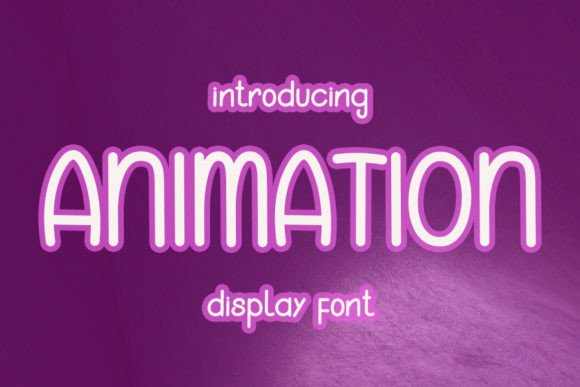
The Ultimate Guide to Animation Font: Elevate Your Designs with a Modern Twist
Have you ever been in the middle of a design project, and suddenly, you’re stuck on finding the perfect font? I recall a recent experience where I was working on a branding project for a trendy new cafe, and I just couldn’t find a font that captured the modern, playful vibe they were looking for. That’s when I stumbled upon the Animation Font, and it completely transformed my design. In this article, we’ll dive into the world of Animation Font, exploring its features, how to use it, and what makes it a game-changer for designers, crafters, and creative hobbyists.
A Personal Review: What I Love About Animation Font
So, what makes Animation Font so special? Here are a few things that I absolutely love:
- ✨ Balanced and varied: The font has a perfect balance between thickness and thinness, making it easy to read and visually appealing.
- ✅ Modern vibe: The font has a fresh, modern feel that instantly elevates your designs.
- 💯 Spotless form: The font is clean and precise, making it perfect for a wide range of design projects.
While Animation Font is an amazing font, there are a few minor quirks to be aware of:
- 🤔 Limited use in very small sizes: While the font is generally great for body text, it may not be the best choice for very small font sizes (e.g., 8-10pt).
- ⚠️ No extensive language support: The font may not support a wide range of languages, so be sure to check the character set before using it for a multilingual project.
Animation Font was designed with the goal of creating a modern, yet approachable font that could be used in a wide range of design projects. The designer aimed to create a font that was both clean and elegant, with a unique personality that would stand out in any design.
| What is Animation Font? | Animation Font is a modern, handwritten display font designed for creative projects and branding. |
In conclusion, Animation Font is an amazing font that can elevate your designs and add a modern twist. With its balanced and varied style, spotless form, and modern vibe, it’s perfect for a wide range of design projects. Whether you’re a designer, crafter, or creative hobbyist, Animation Font is definitely worth checking out.